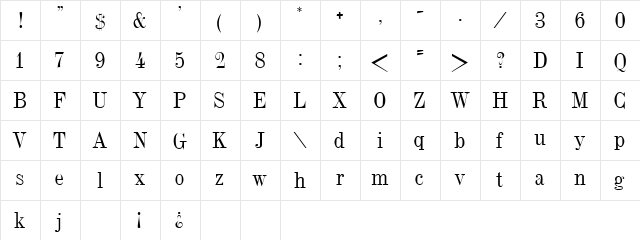
Jumble Plain
Design Context for Jumble Typeface
Jumble offers clean, dependable letterforms without strong stylistic allegiance, making it a practical choice for designers who need flexibility.